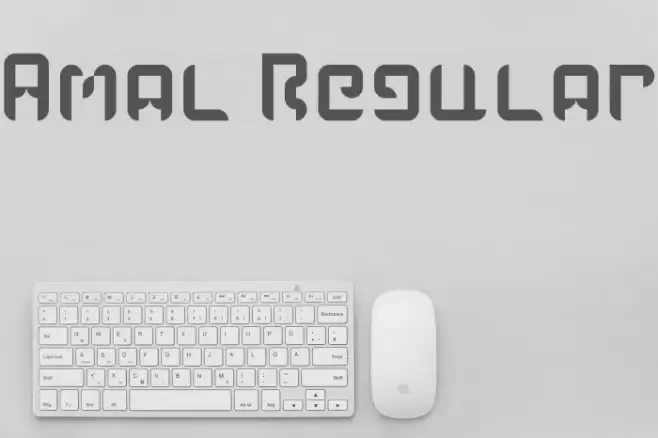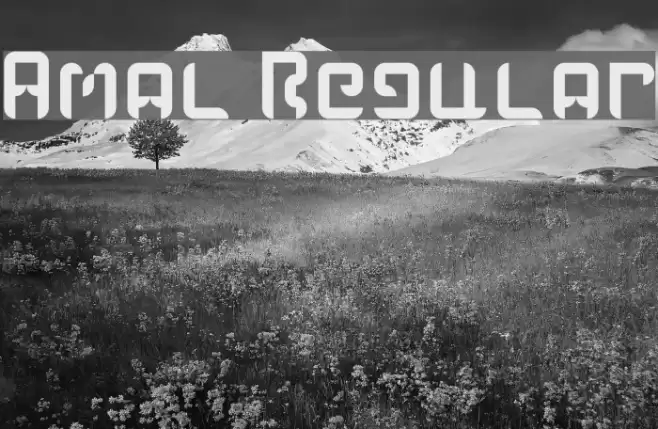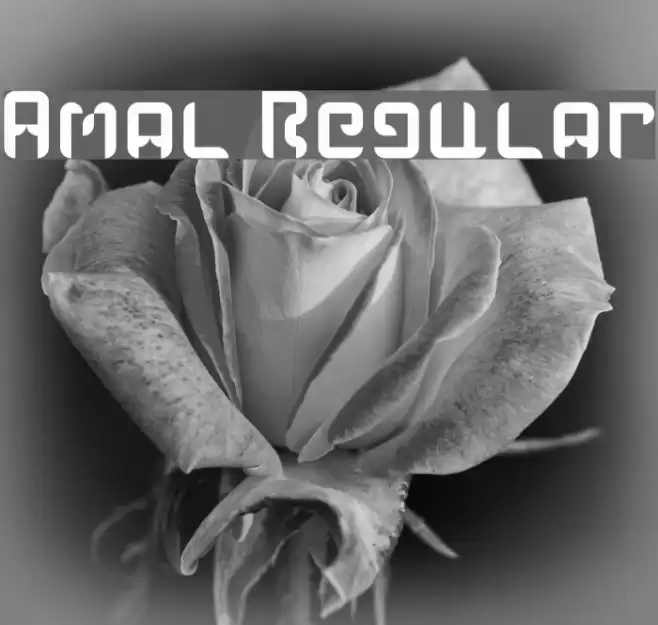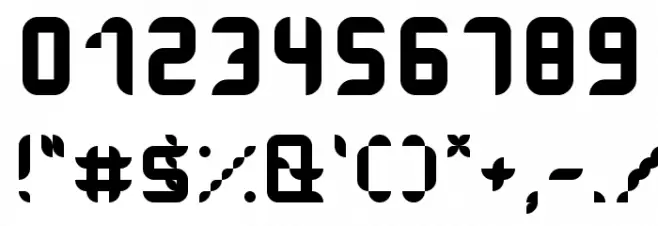
Amal Regular Font
Amal Regular Description
This font features a bold, geometric style with a futuristic feel. The characters are constructed with a combination of straight lines and rounded edges, giving them a unique, modern appearance. The uppercase and lowercase letters maintain a consistent height, creating a uniform look across the typeface. The numbers and special characters are designed to match the overall aesthetic, ensuring a cohesive appearance. The font's distinct style makes it suitable for projects that require a contemporary and innovative touch.
A bold, geometric font with a futuristic and modern style from Uncategorized fonts.
- Proposed Projects: Ideal for technology branding, sci-fi themed designs, modern posters, and innovative product packaging.